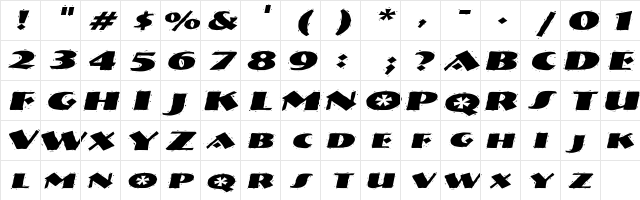
NatividadExtended Italic
Design Context for NatividadExtended
NatividadExtended is a composed and adaptable typeface that performs quietly and consistently across a wide range of design contexts. The slanted form adds forward momentum and visual energy.
Pro Tip: Use NatividadExtended for emphasis, pull quotes, and subheadings where its slanted energy can add rhythm to the layout.